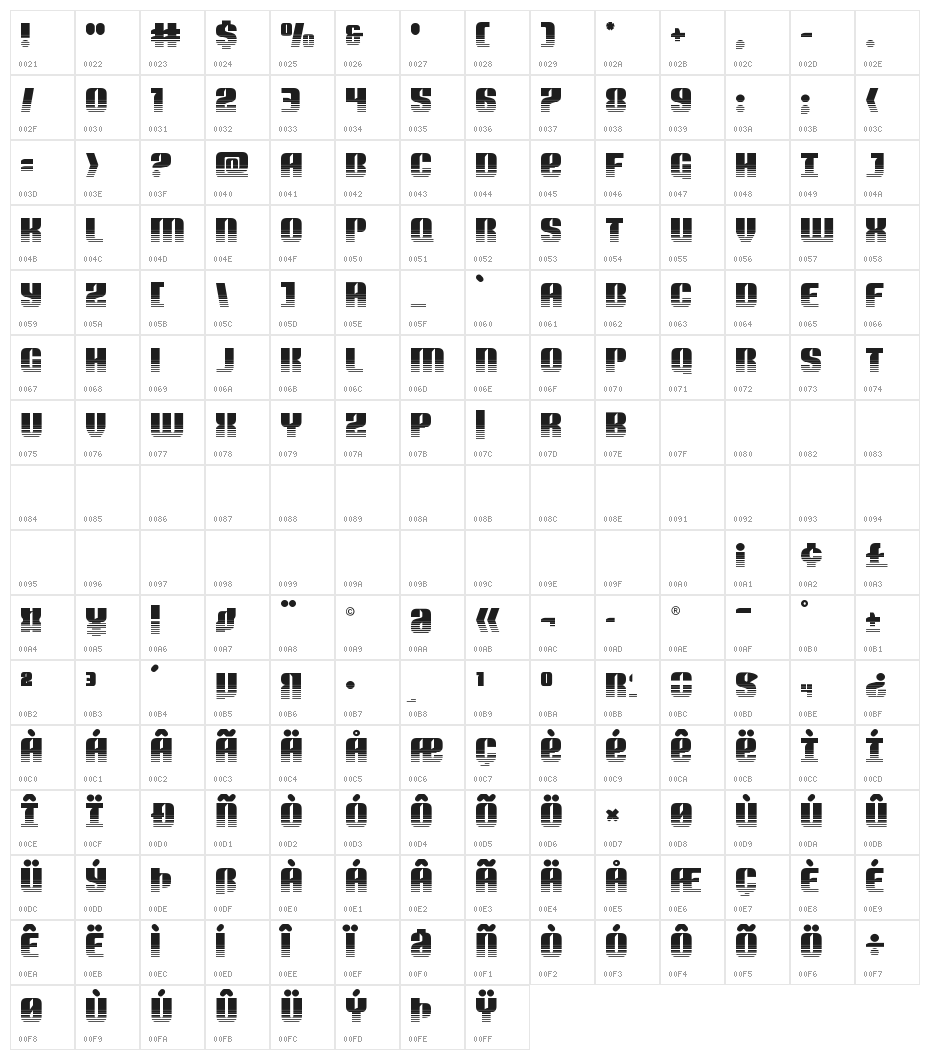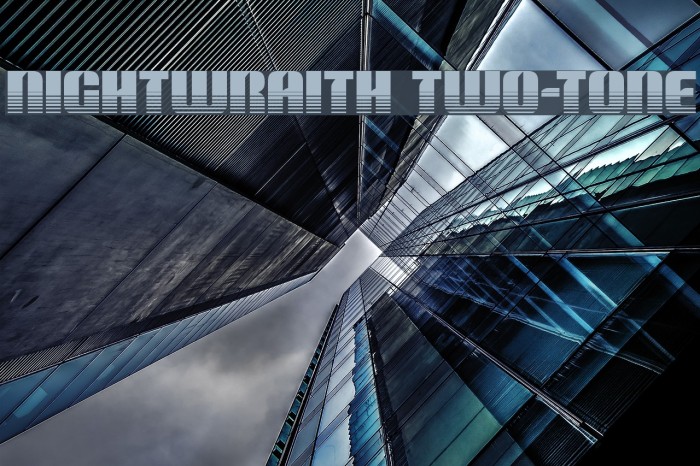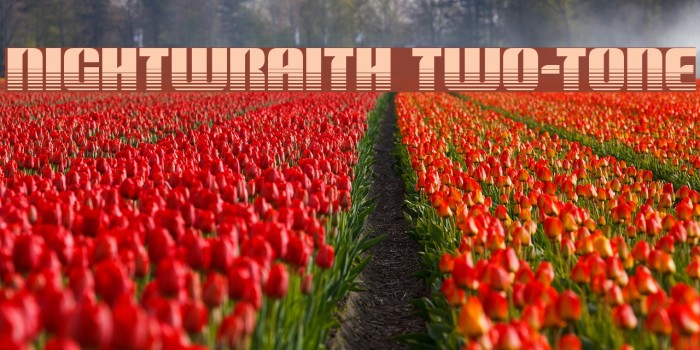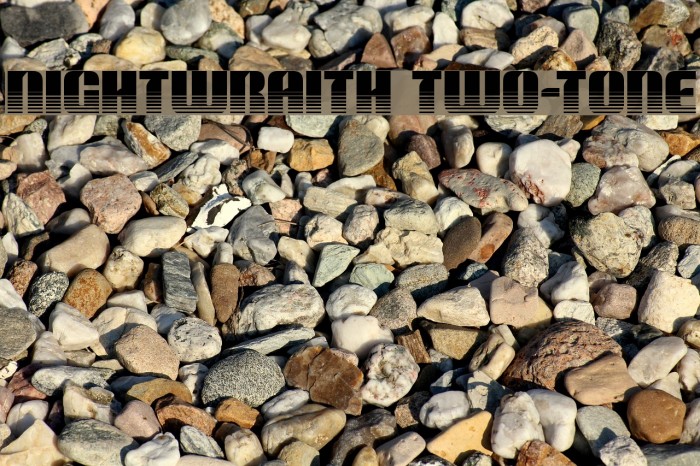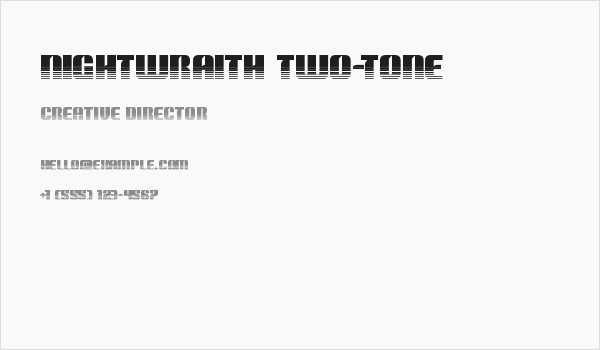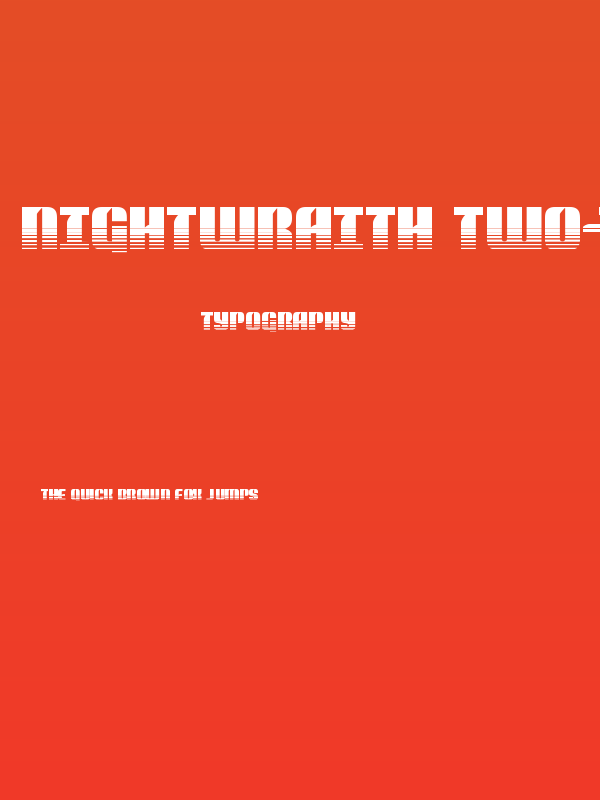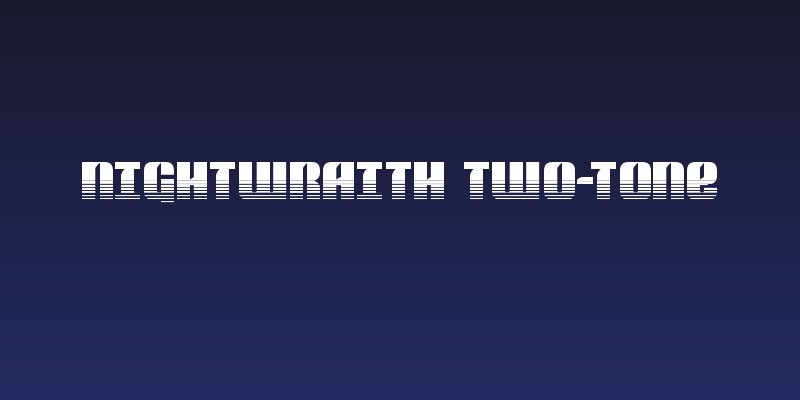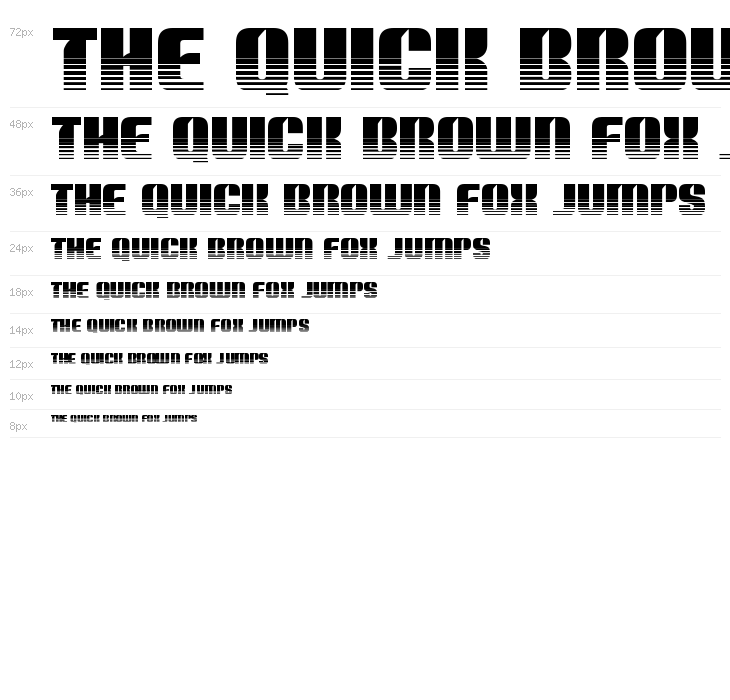
Nightwraith Two-Tone Font
Nightwraith Two-Tone Description
This font features a bold, futuristic design with a two-tone effect created by horizontal lines that cut through each character. The uppercase letters are robust and wide, giving a sense of strength and modernity. The lowercase letters maintain the same stylistic approach, ensuring consistency throughout. Numbers and special characters are designed with the same horizontal line pattern, adding to the cohesive look. The overall appearance is striking and eye-catching, making it suitable for projects that require a bold statement.
| Proposed Projects | Ideal for sci-fi themed designs, video game titles, posters, and branding that requires a modern and bold aesthetic. |